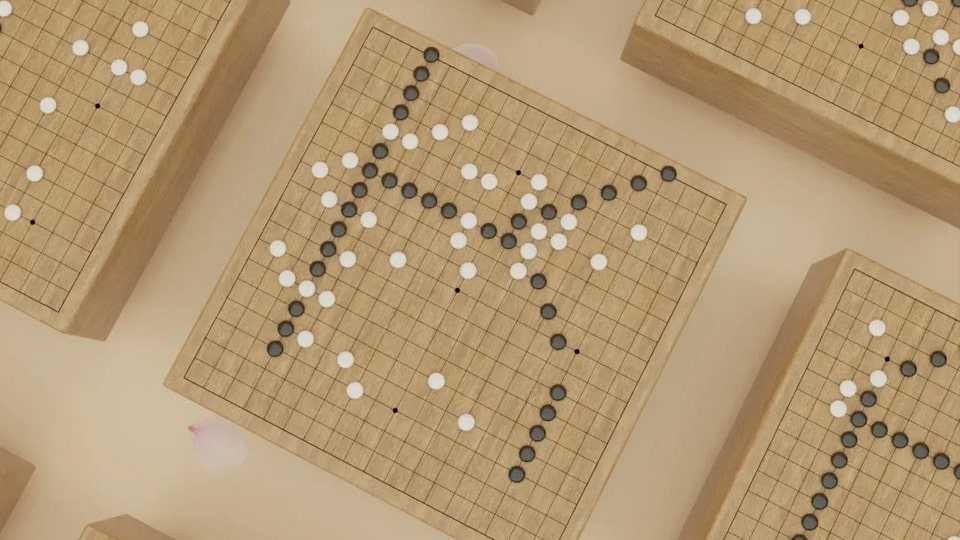
Download (VRM) HIKARU MONO font, a monospaced typeface drawn on an online Go game board. Every Glyph is the result of an online confrontation.
Designer: Antoine Sigur